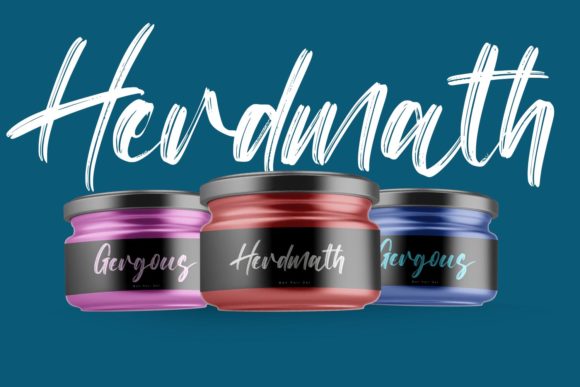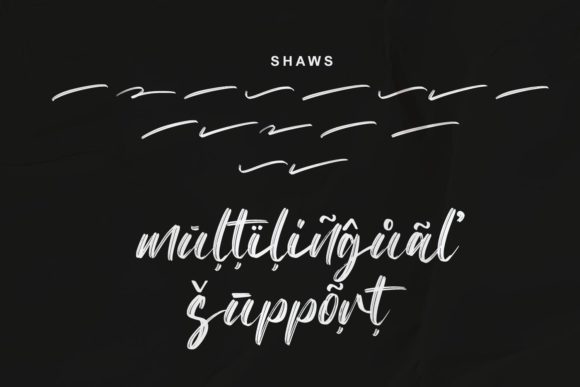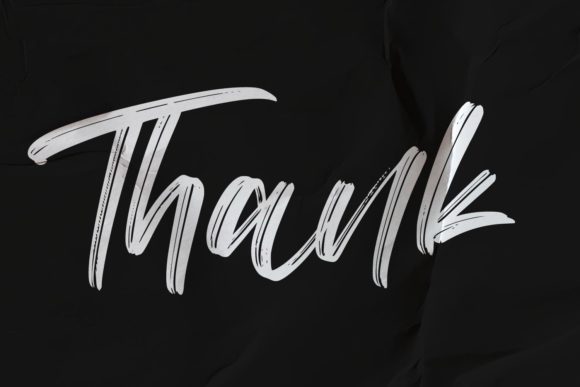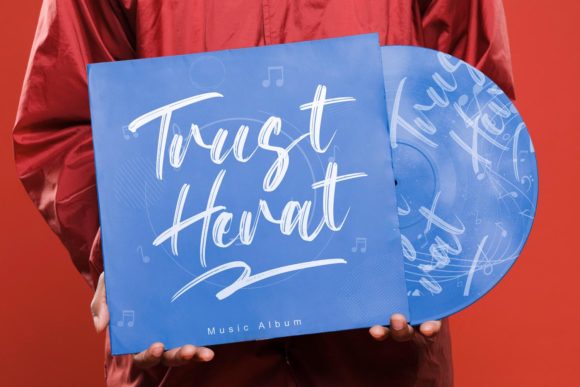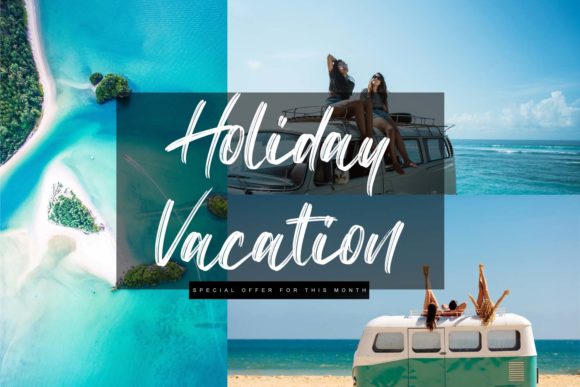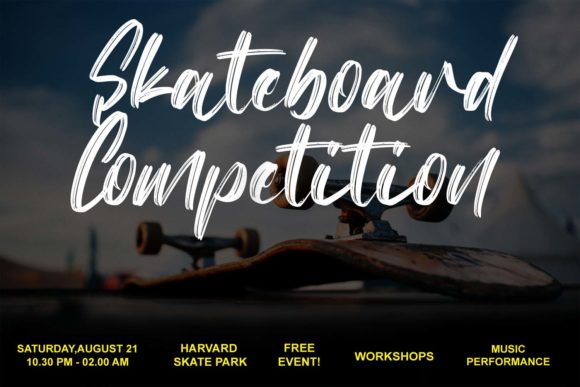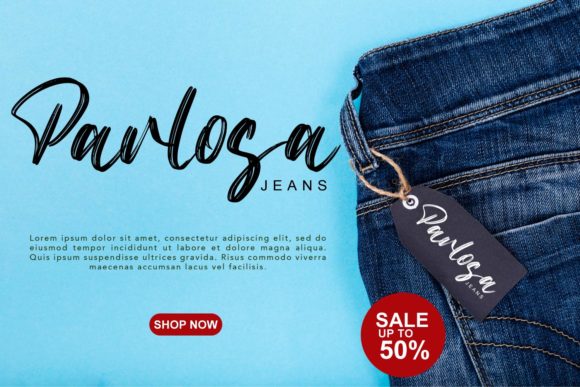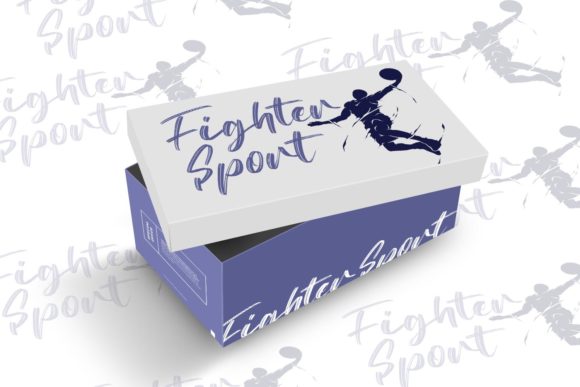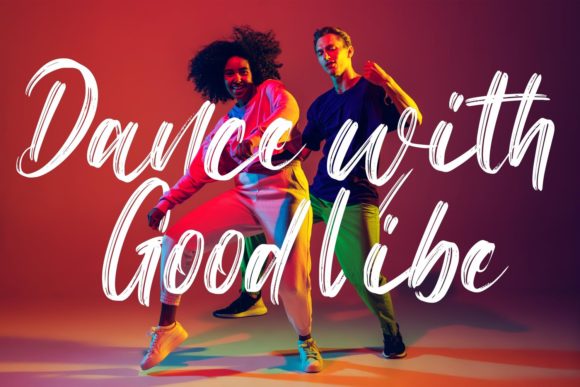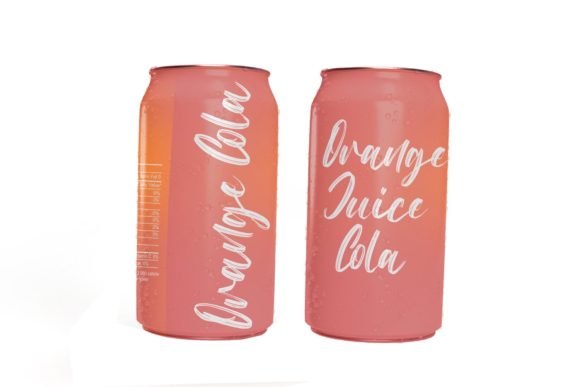
Monera Calm Font
About Monera Calm Font
Monera Calm is a captivating brushed handwritten font that brings a flowing and organic feel to your creative projects. With its ravishing touch and fashionable style, this font is the perfect choice for adding a unique and artistic flair to your designs.
The flowing nature of Monera Calm’s brush strokes gives it a sense of movement and dynamism. Each letter is crafted with care, creating a natural and handcrafted appearance. Whether you’re designing greeting cards, posters, or social media graphics, Monera Calm adds a touch of elegance and personality to your creations.
The versatility of Monera Calm allows it to adapt to a wide range of design ideas. Its daring style makes it suitable for both casual and sophisticated projects. From trendy fashion branding to whimsical illustrations, this font can bring your creative vision to life with its distinctive and expressive qualities.
Monera Calm invites you to fall in love with its fashionable and captivating style. Its brush-like texture and organic forms create a sense of warmth and authenticity. The font’s natural imperfections and irregularities add character and charm to your designs, making them stand out from the crowd.
Using Monera Calm opens up a world of possibilities for your creative endeavors. Its versatility allows you to experiment with different layouts, color schemes, and compositions. The font’s flowing and dynamic nature invites you to explore various design ideas and push the boundaries of your imagination.
Incorporating Monera Calm into your projects is effortless and rewarding. Its smooth and legible letterforms ensure readability while maintaining its artistic appeal. Whether you’re working on digital or print designs, this font delivers a seamless and enjoyable typographic experience.
In conclusion, Monera Calm is a flowing brushed handwritten font that adds a ravishing touch to your creative ideas. Its fashionable and daring style allows you to create lovely designs with a unique and artistic flair. Fall in love with this font’s organic forms and versatile nature, and let it inspire your next creative endeavor.